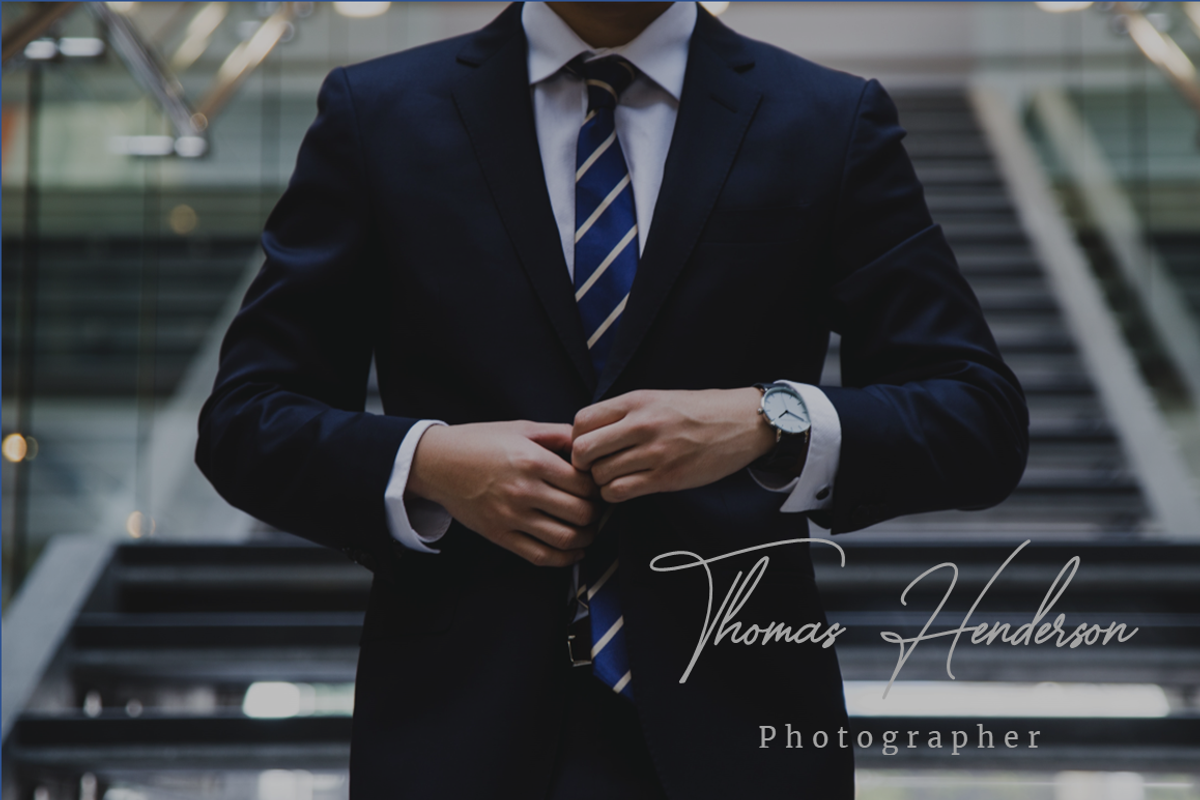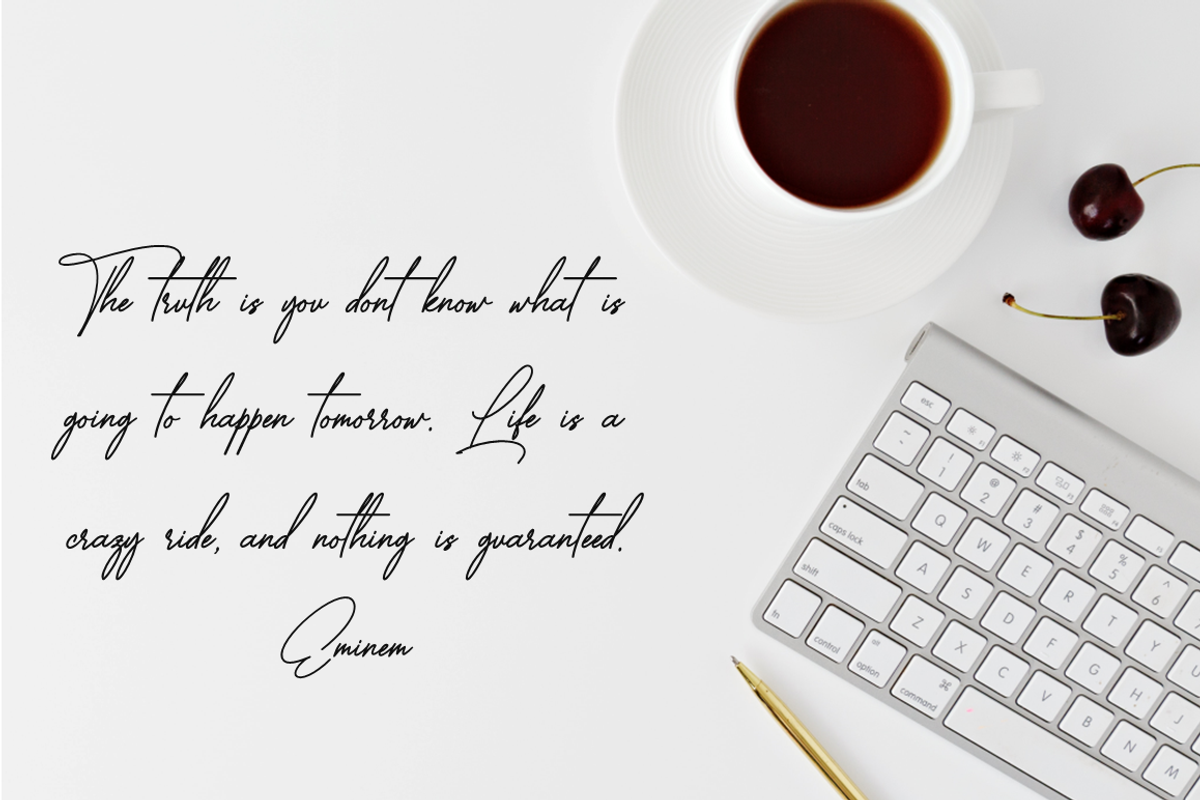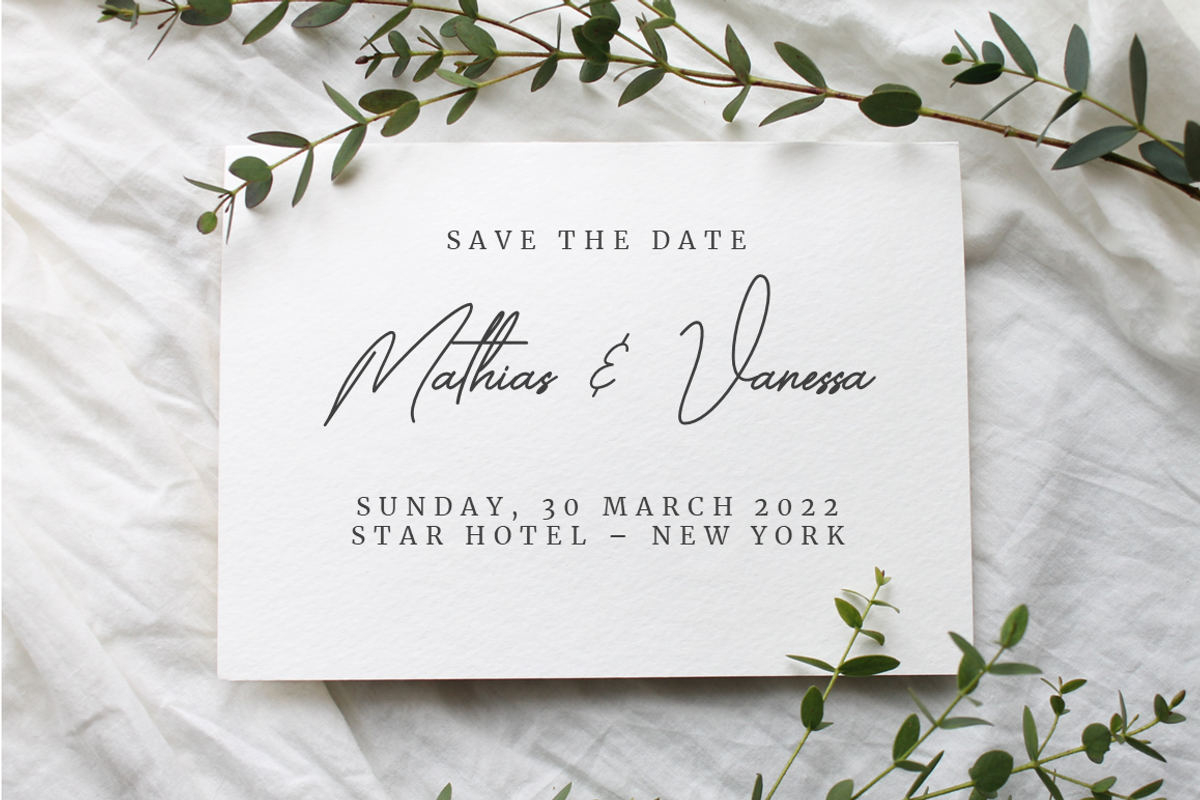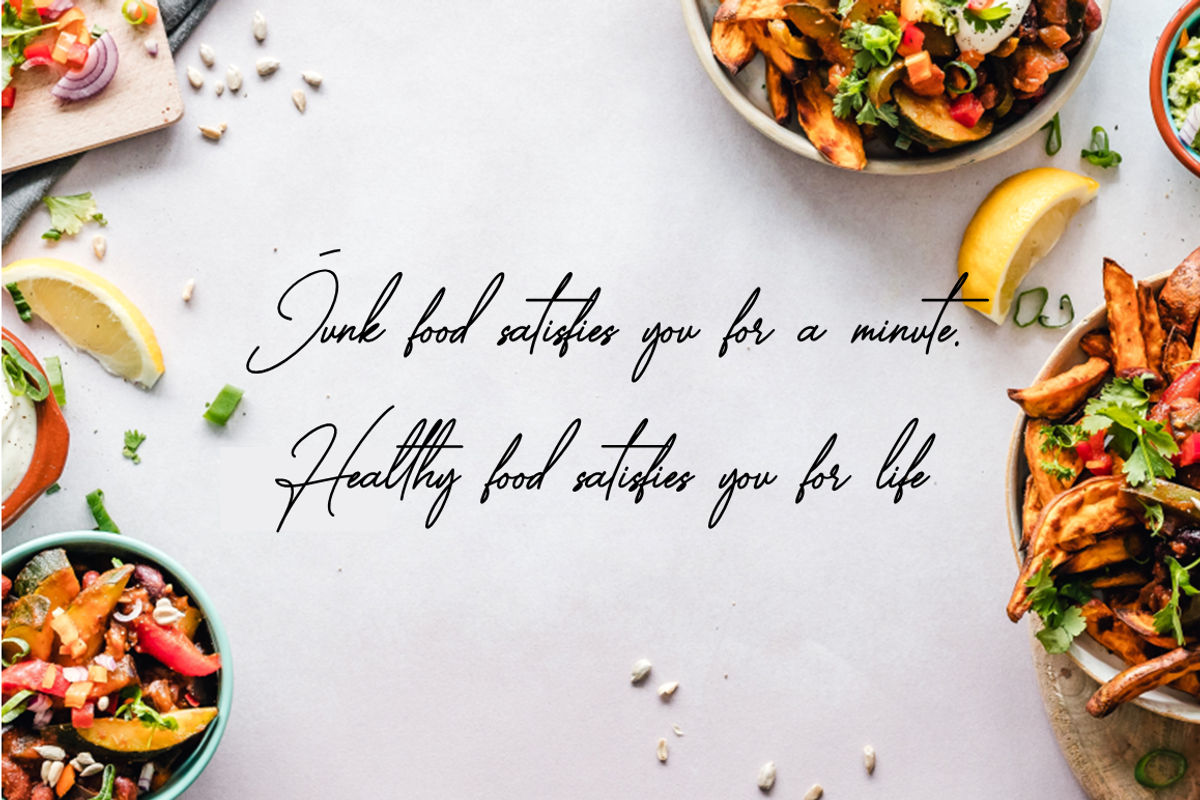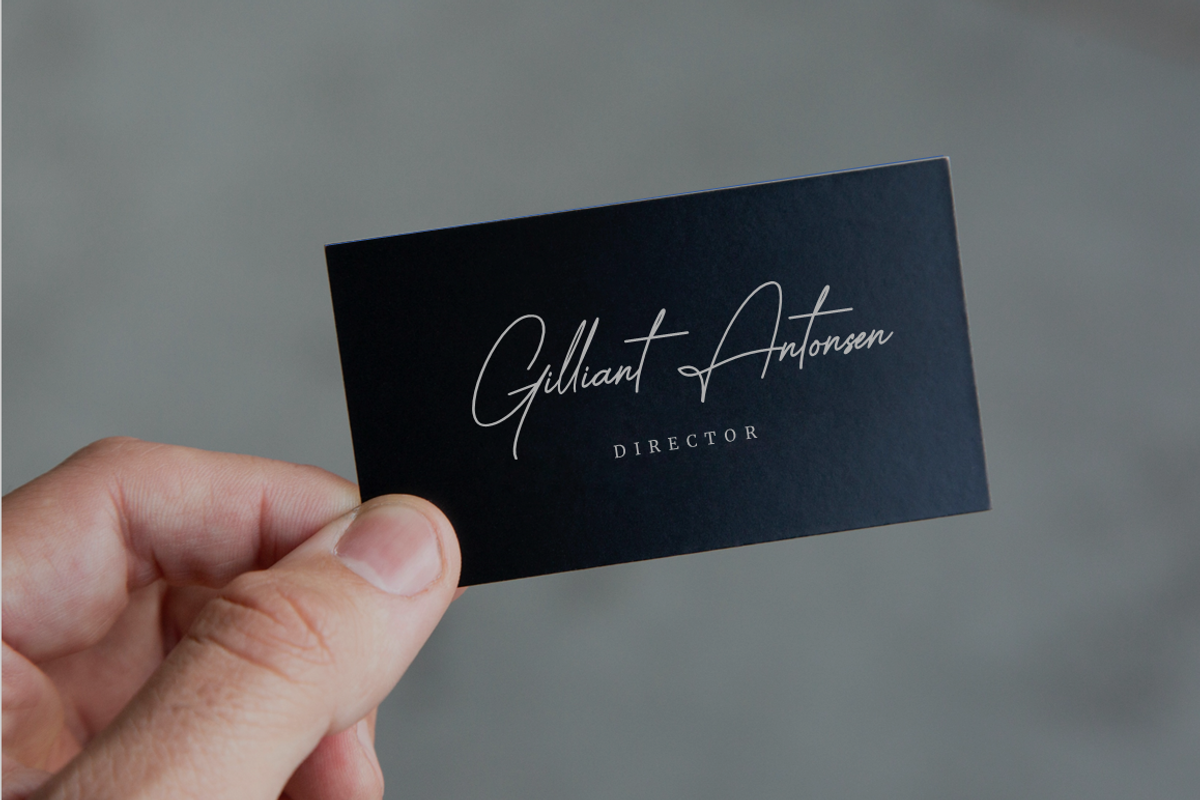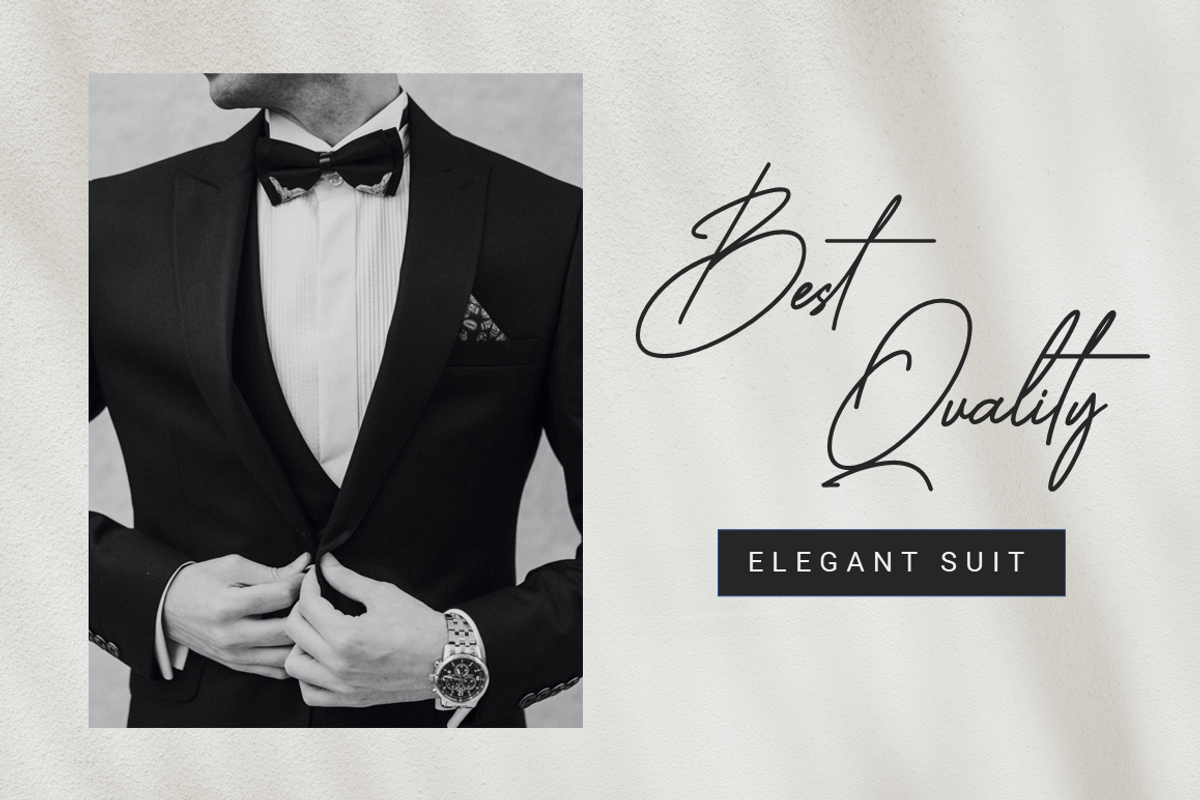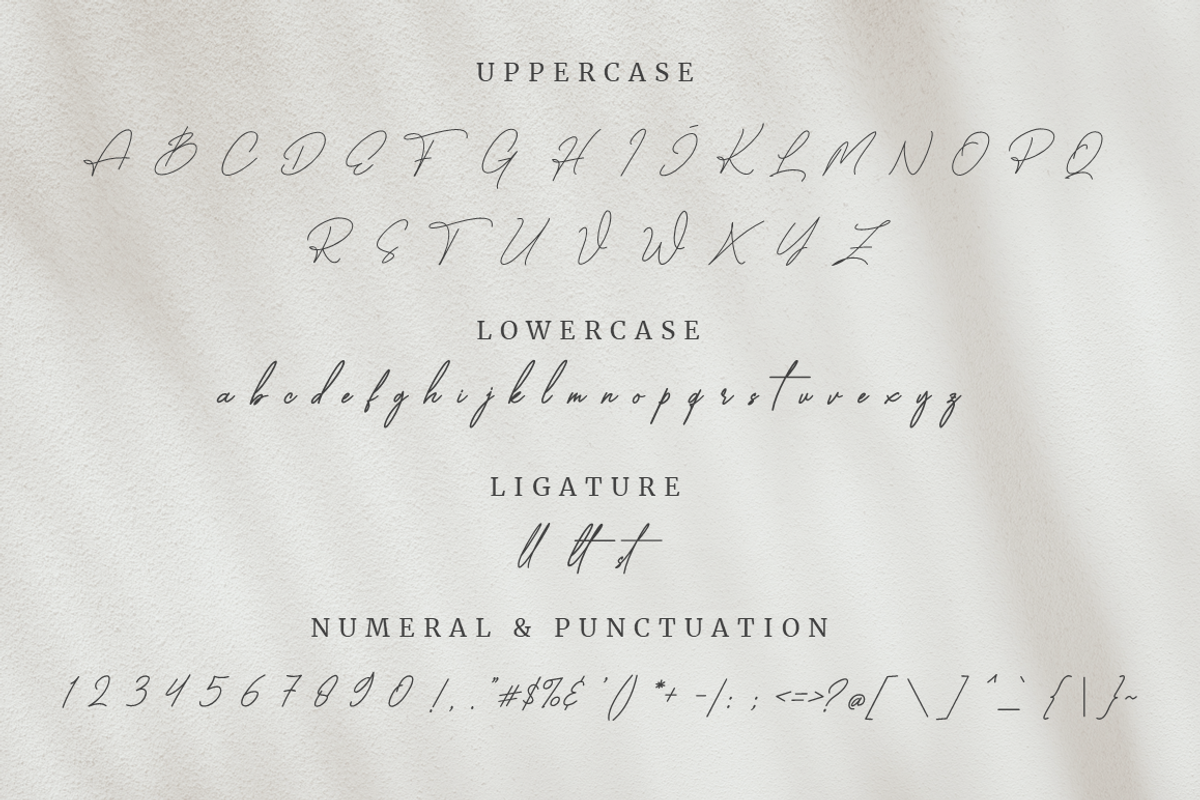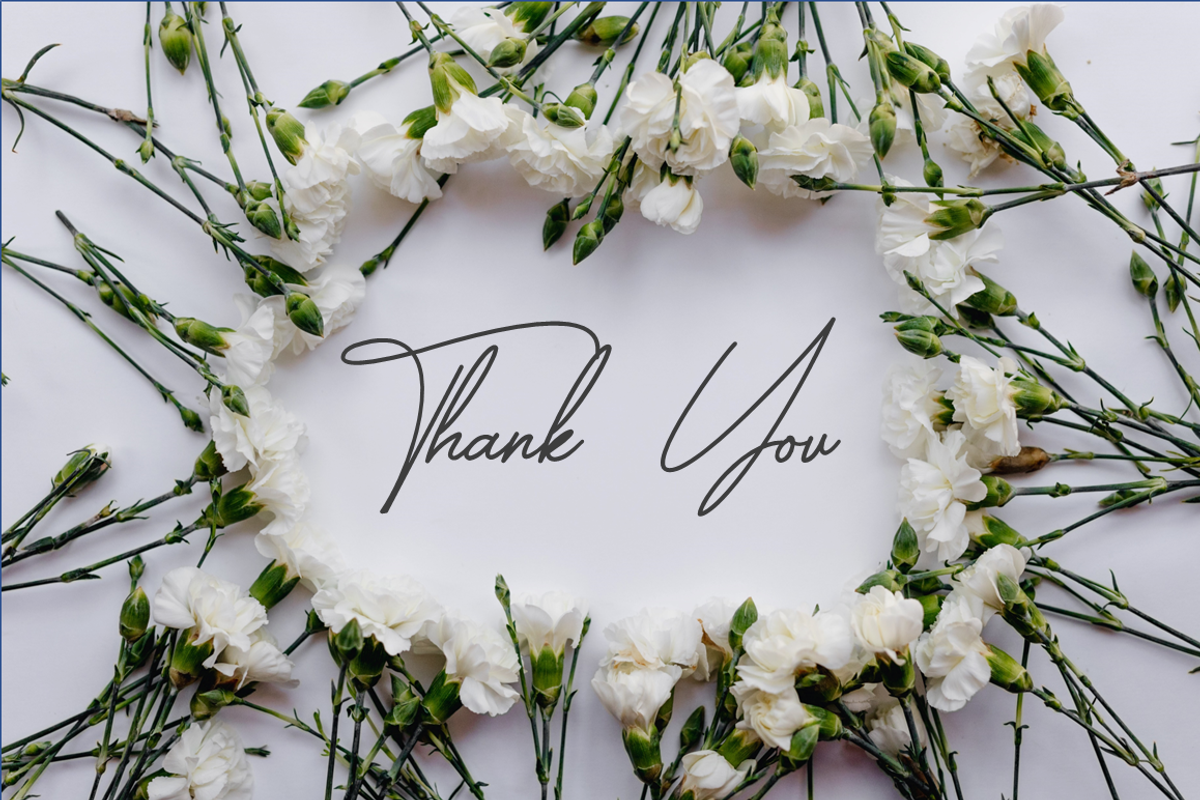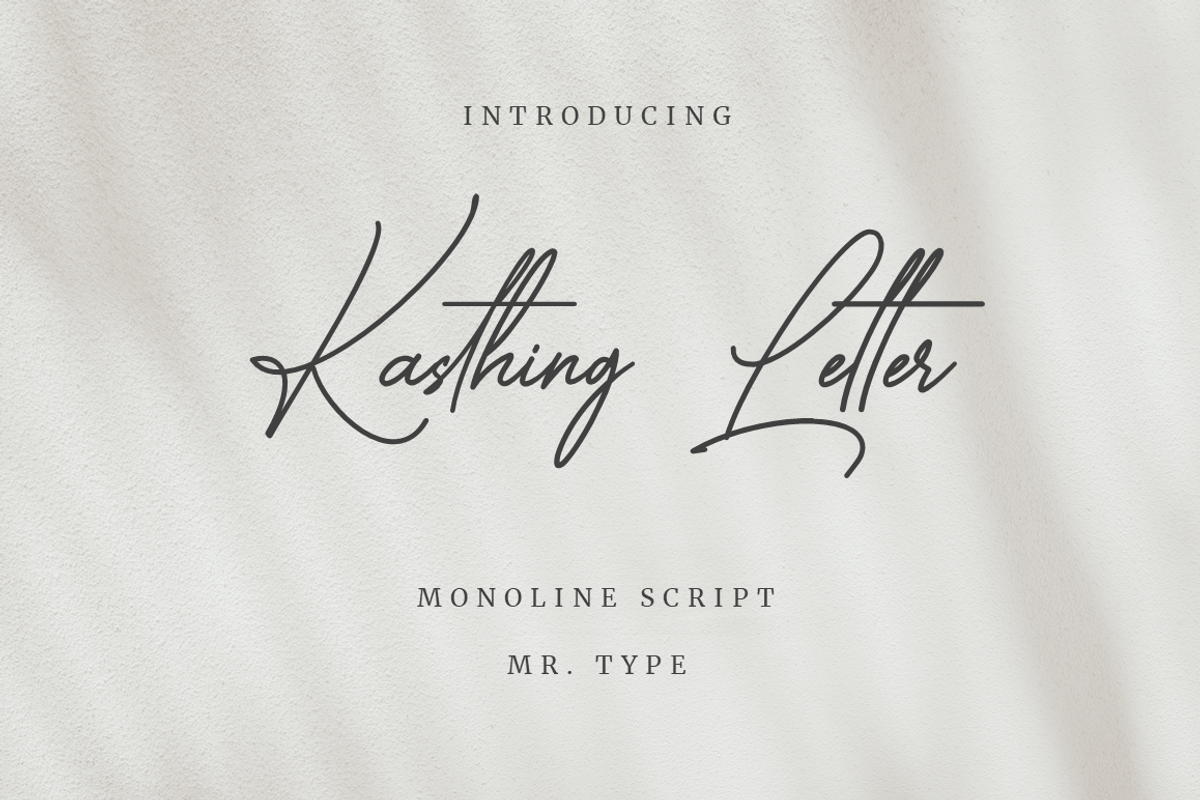
Kasthing Letter
Kasthing Letter is signature font. With a chic and natural handwritten style, this font looks elegant, beautiful ,classy and stylish.
It so beautiful elegant, and classy.
West America is suitable for many different designs for bussines card, quotes, social media, signature, wedding invitations, advertisements, product designs, label, photography, watermark and more.